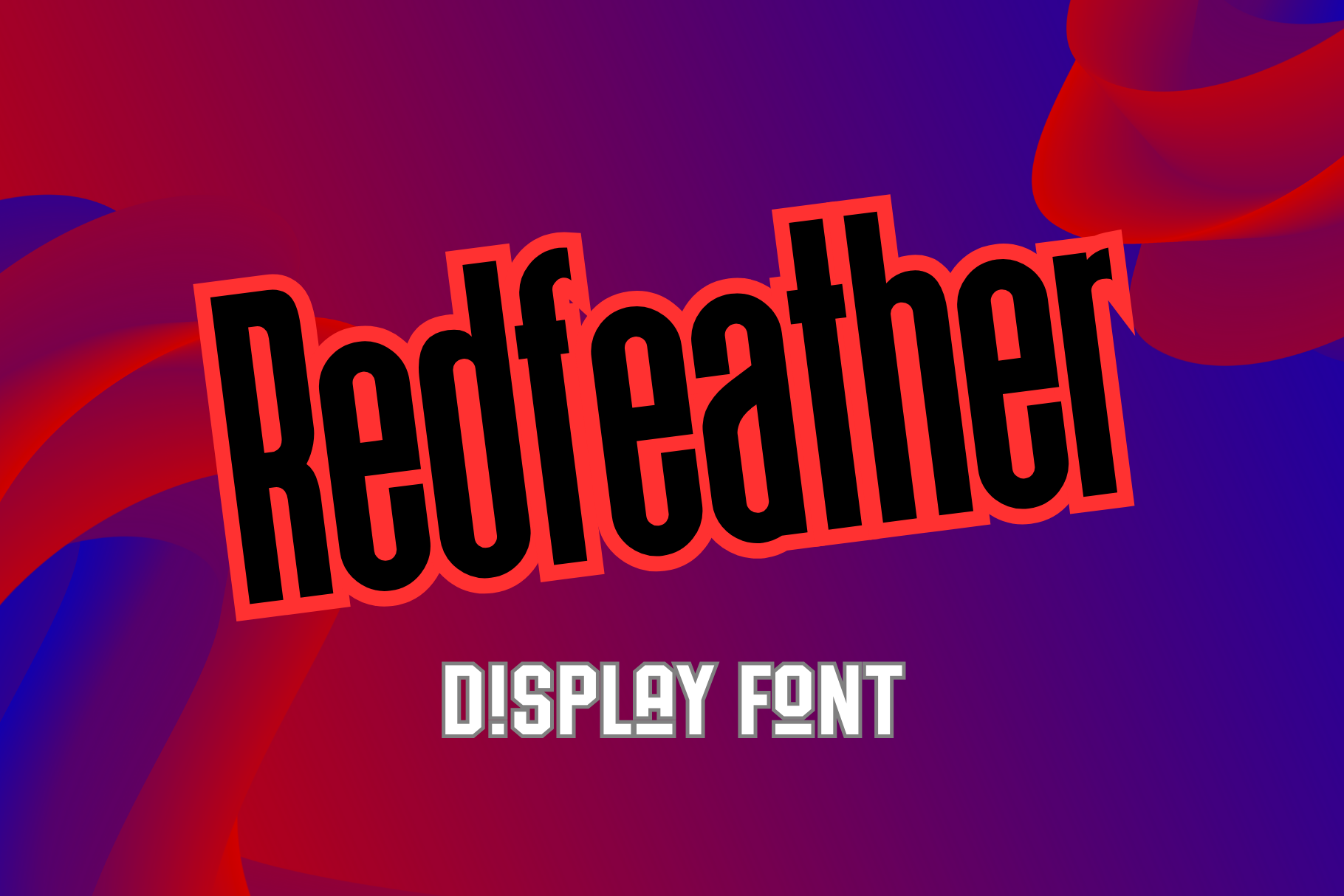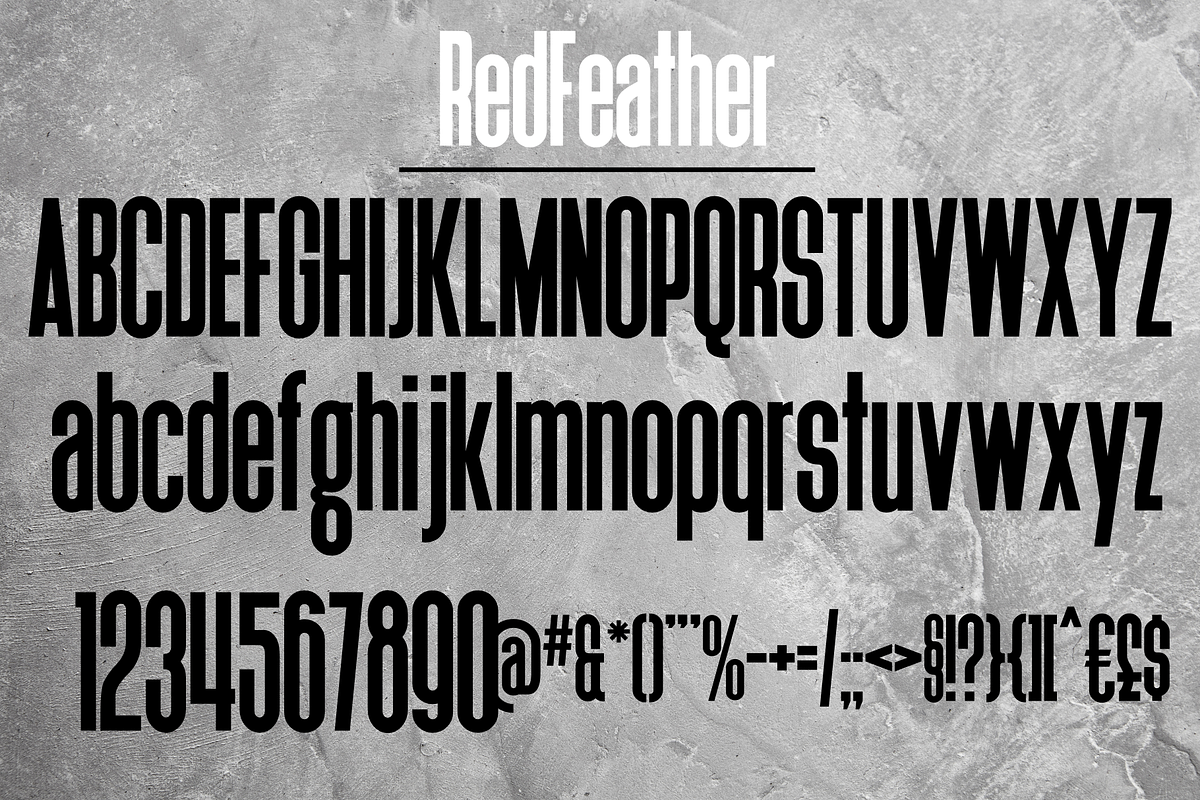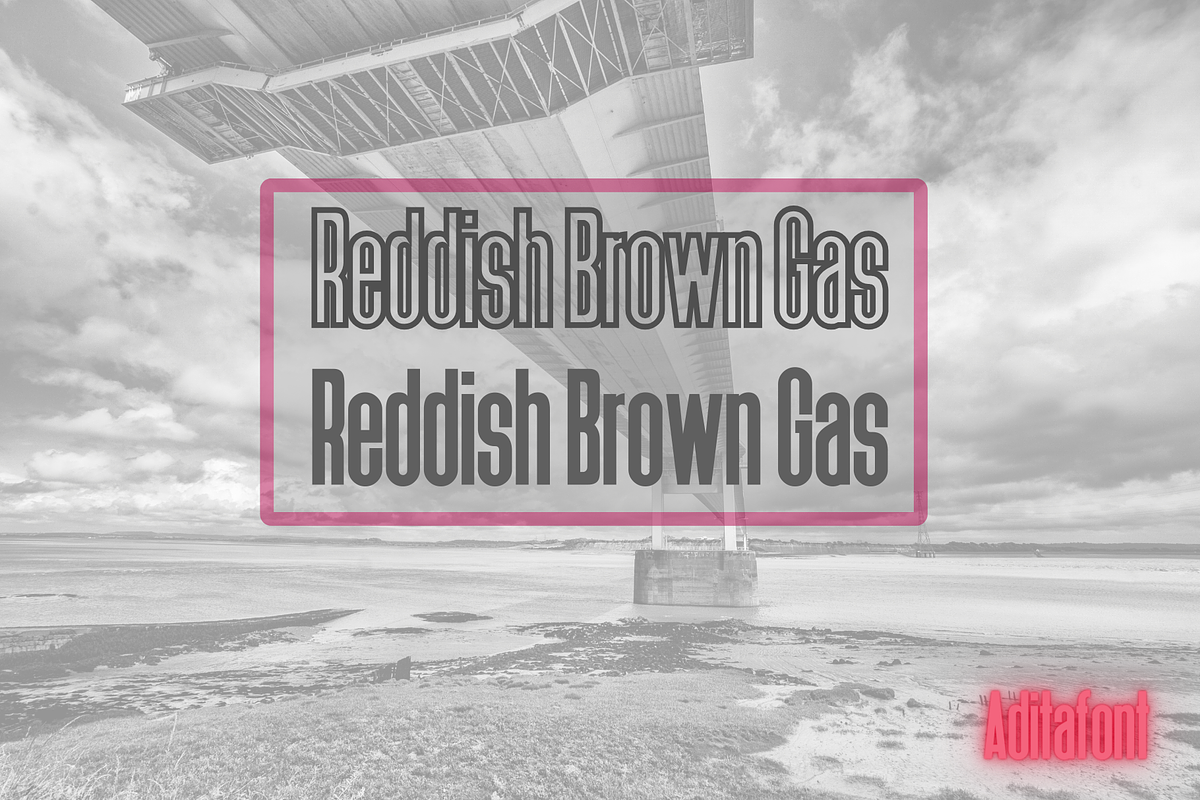
RedFeather Display fonts
This relative of Deutschlander is about 20% taller and designed to take up more vertical space. Unlike most of our display fonts this one is designed to fill body text or accompany titles. Included are basic/extended latin Greek, Cyrillic, and many other European accents and diacritics. OTF features include ordinals, small caps, stylistic sets, ligatures, and alternates. Squeeze lots of text into your next project such as faux movie posters, labeling, or subtitles.